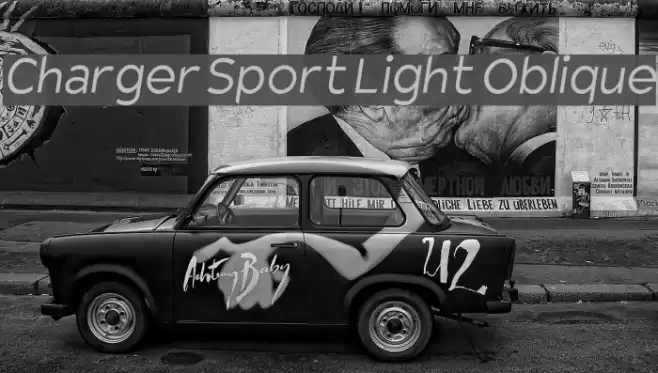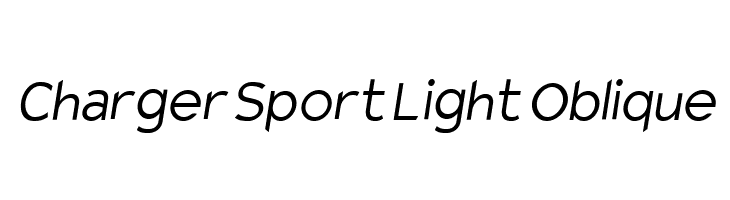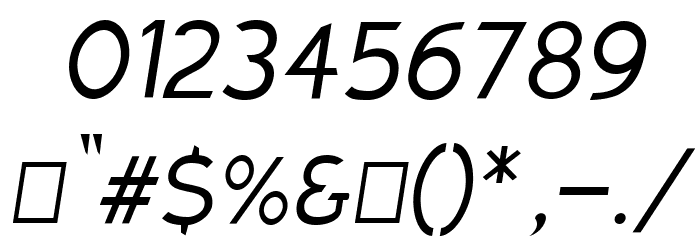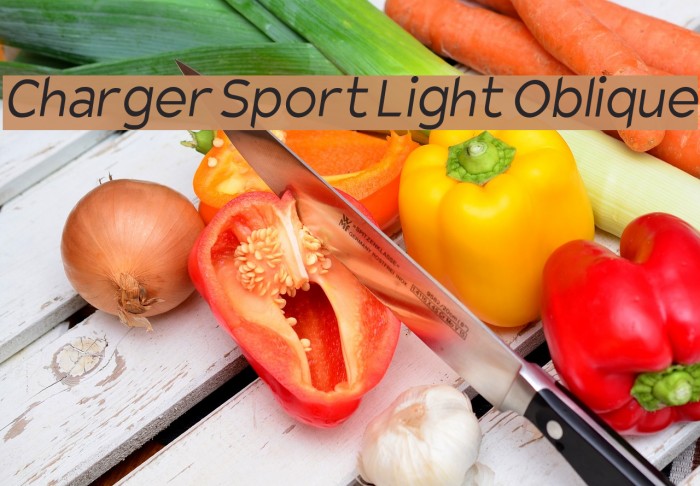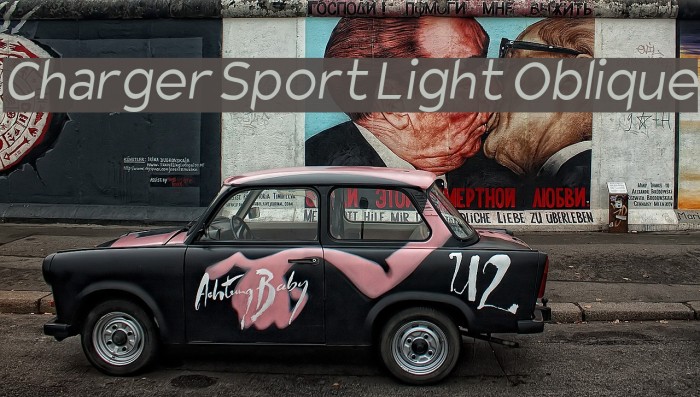
Charger Sport Light Oblique Font
Charger Sport Light Oblique Description
This font features a sleek, modern design with a light oblique style, giving it a dynamic and forward-leaning appearance. The characters are clean and streamlined, with a slight slant that adds a sense of motion and energy. The uppercase and lowercase letters maintain a consistent style, with rounded edges and a uniform stroke width that enhances readability. The numerals are clear and distinct, matching the overall aesthetic of the alphabet. Special characters are well-integrated, maintaining the font's cohesive look. This font's contemporary style makes it suitable for a variety of design applications.
A sleek, modern, light oblique font with a dynamic and streamlined appearance from Uncategorized fonts.
- Proposed Projects: Ideal for sports branding, modern advertising, dynamic web design, and sleek editorial layouts.